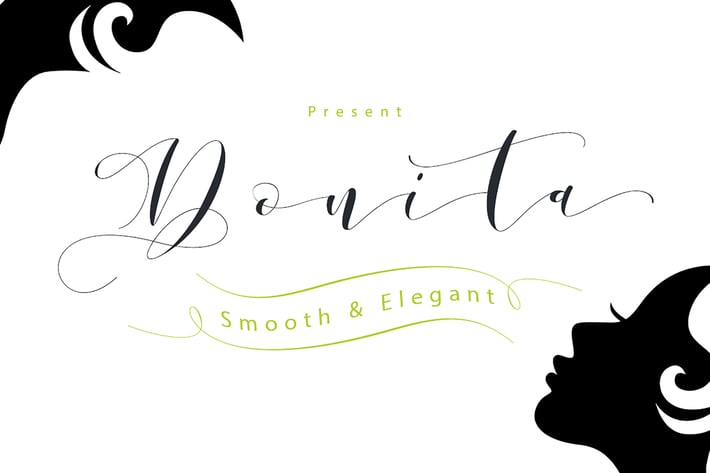
Donita Script + Webfonts
Introducing Donita Script. A handmade script fonts.
Donita Script is a new varieties of handlettered script font, allowing you to completely make-each word look stylish! With smooth style and petite, elegant with a long thin connections that make it look luxurious and original. Donita comes with a total of 385 glyphs complete with swooshes
So you can make each piece as needed. You are must to remember, this is a thin and small fonts.